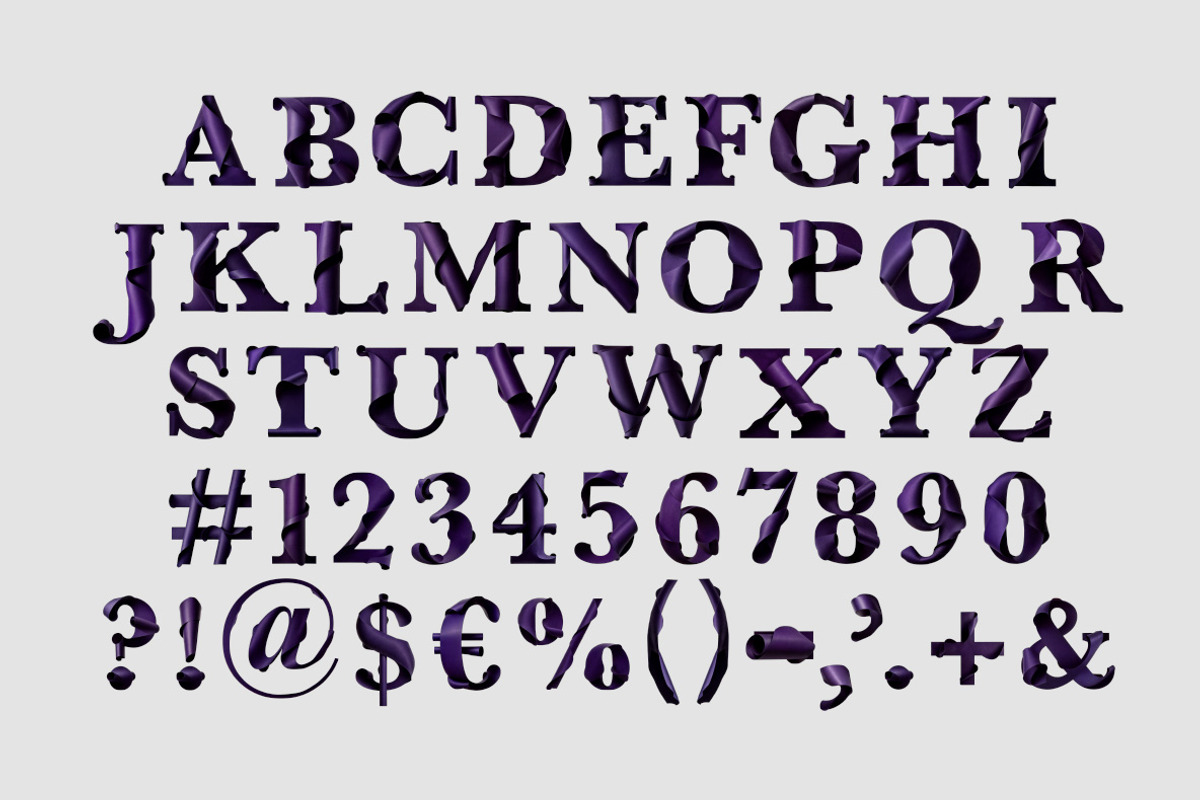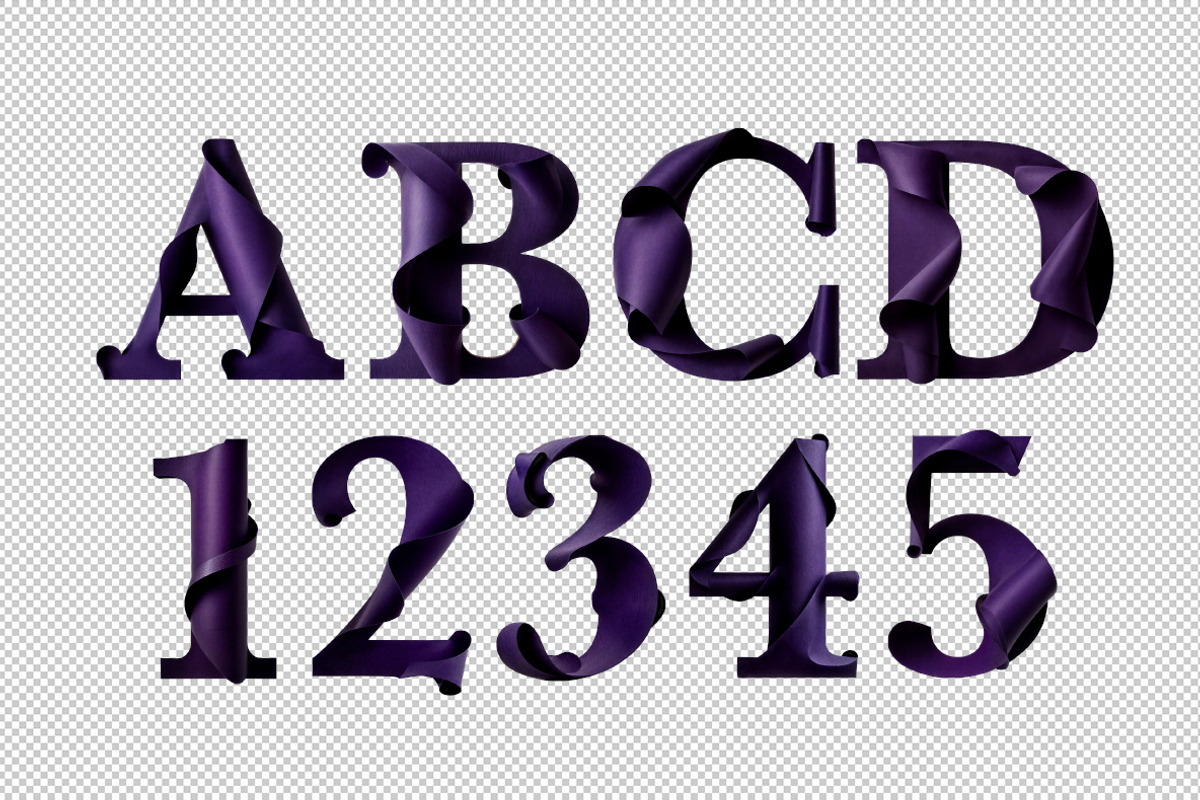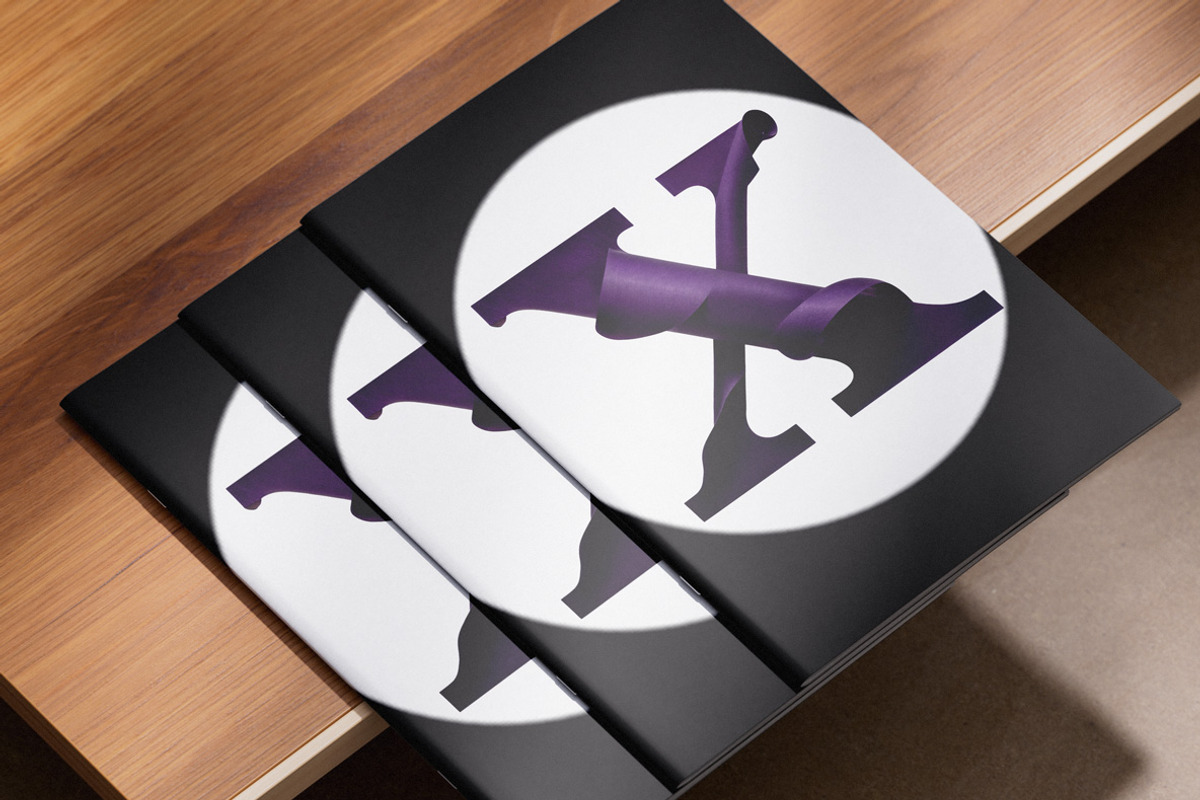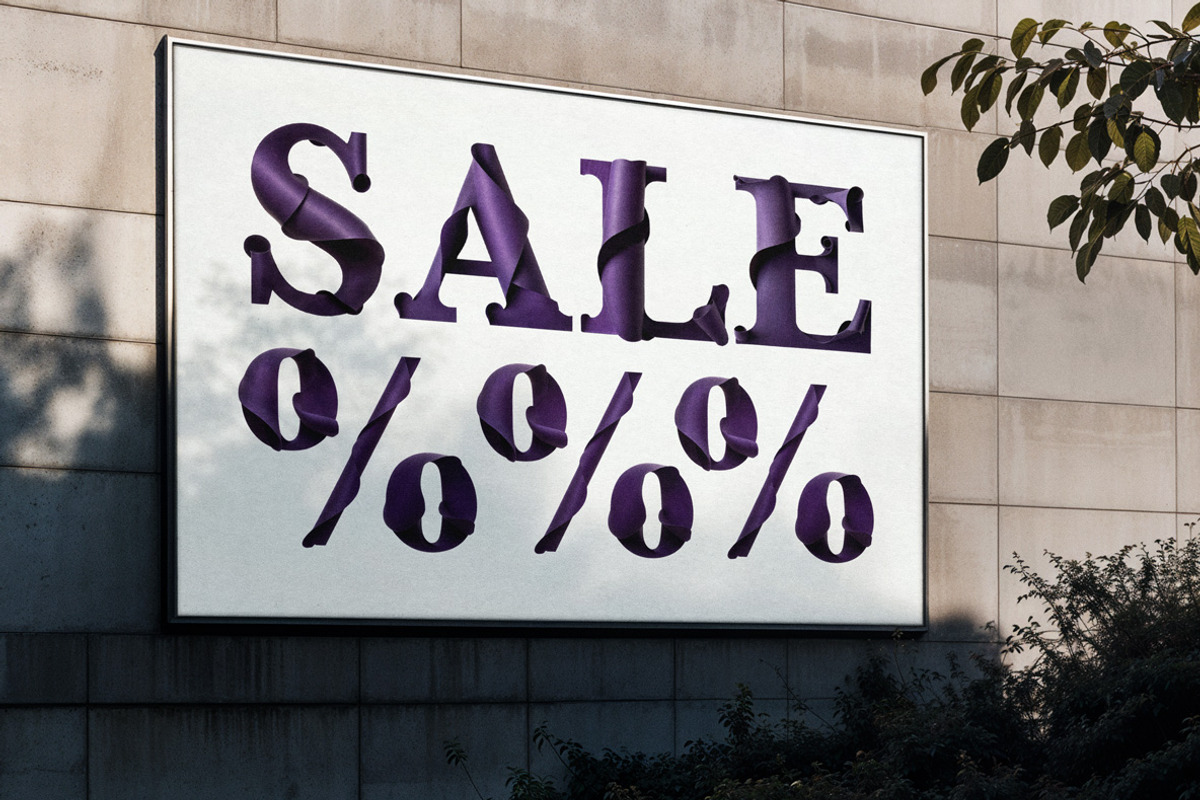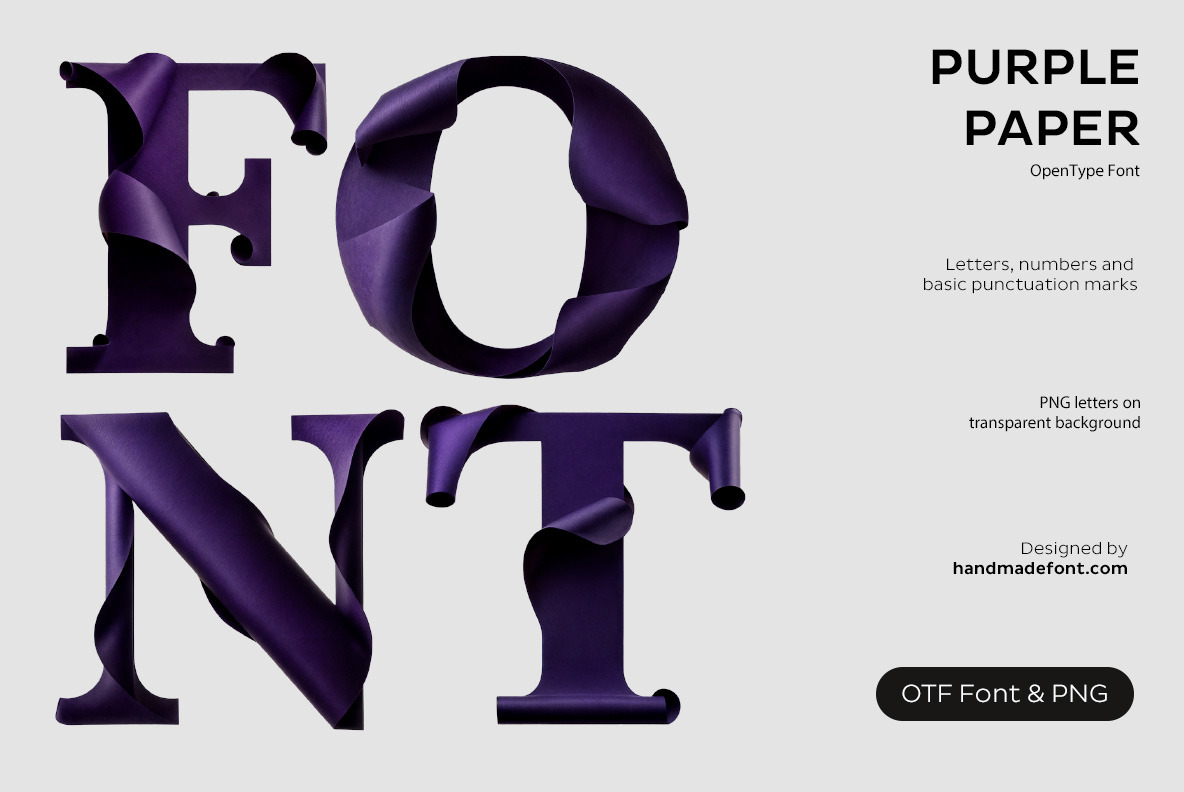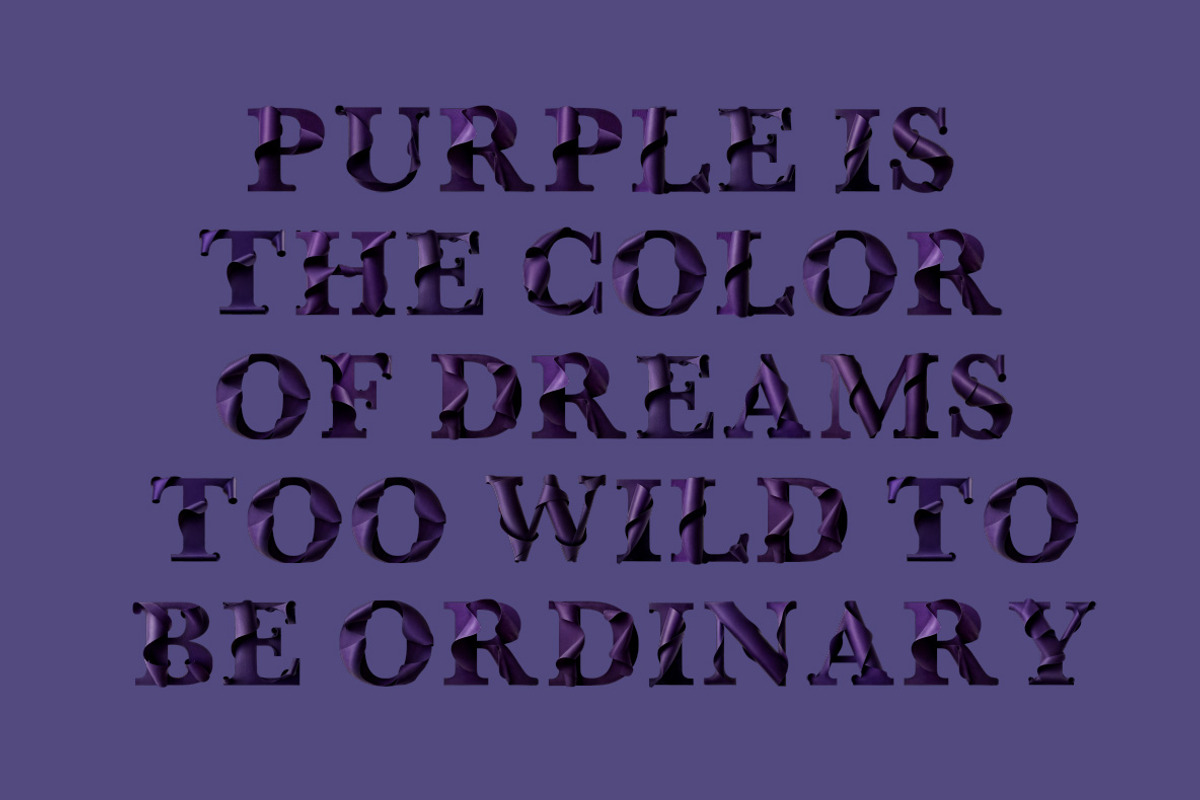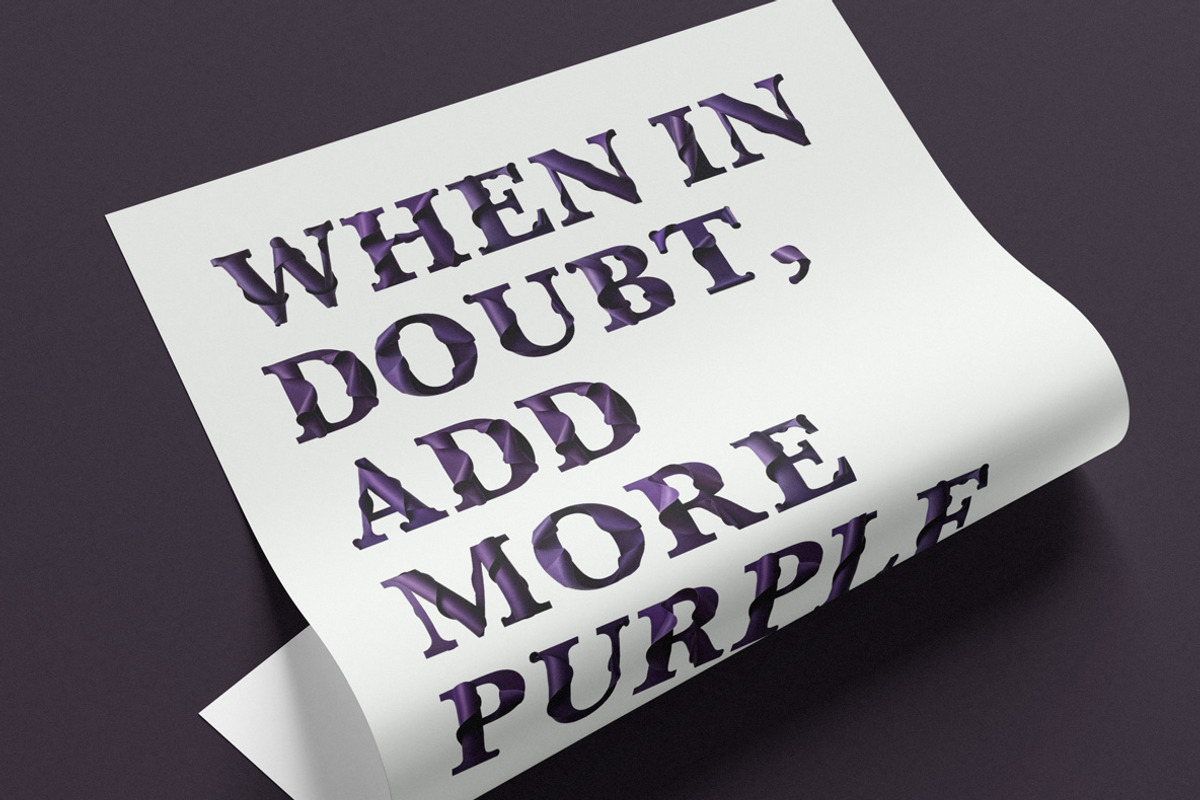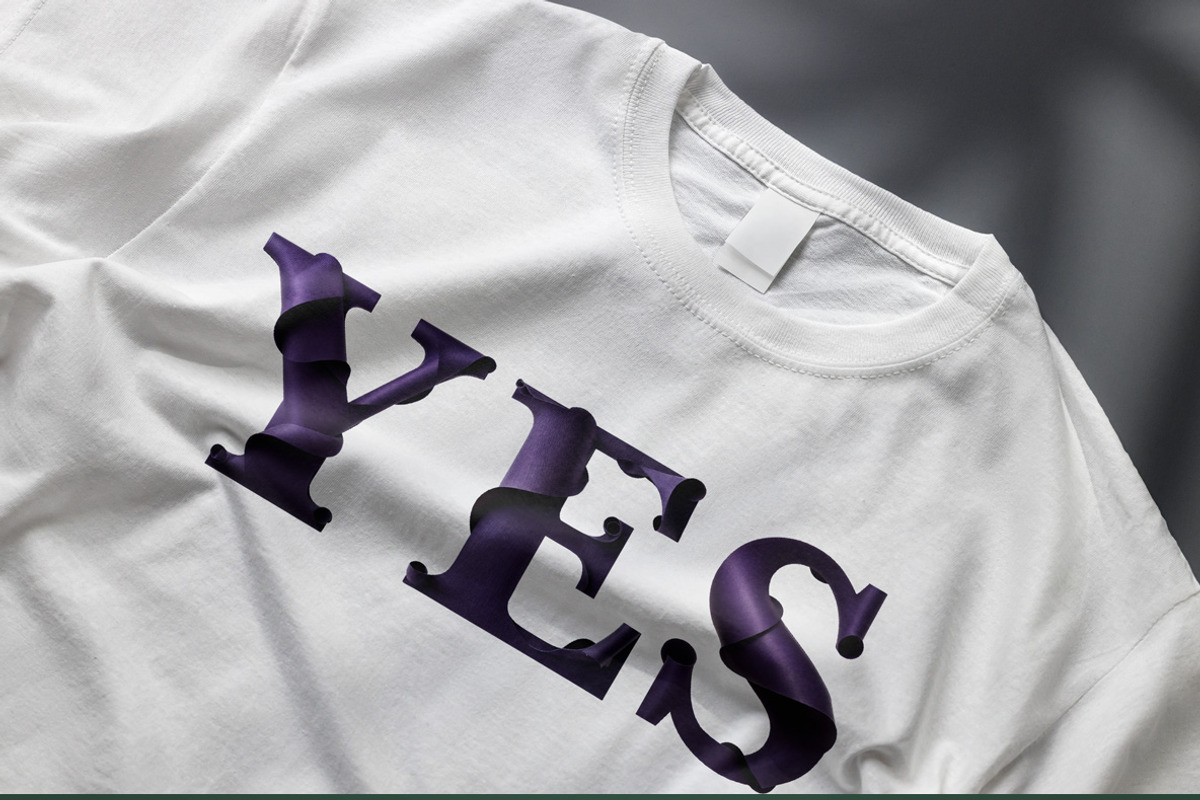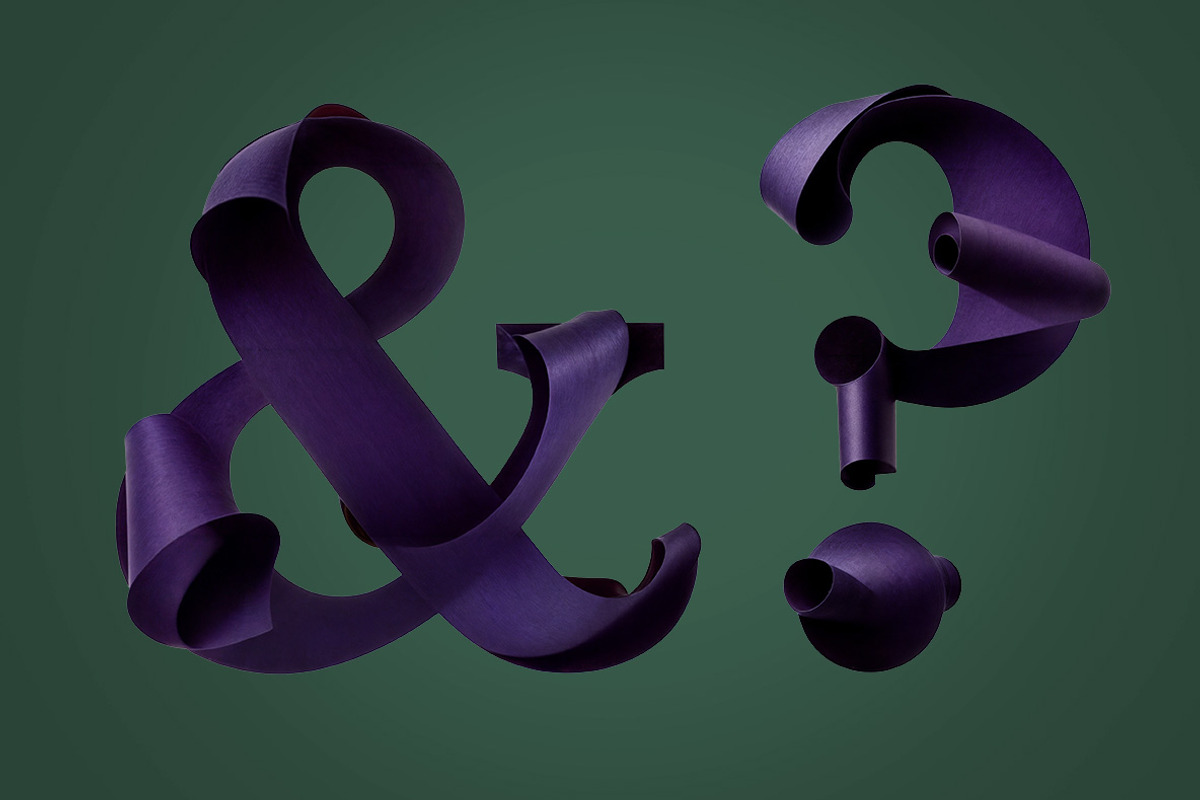
Purple Paper Font
Paper never looked this luxurious! Purple Paper Font is an artistic masterpiece, crafted from deep purple folds that curl and twist like a high-fashion runway show. This isn’t just typography—it’s purple paper lettering with an attitude! With elegant serif-style details and a sophisticated paper-inspired aesthetic, every letter feels like it belongs in a royal proclamation. Whether you're designing for a stylish event or just want to add a touch of refined luxury, this decorative typeface will make your words feel like they were folded by a calligraphy-loving origami master. Go ahead—unwrap the elegance of Purple Paper Typography!
A high definition OpenType Font. Contains uppercase characters, numerals and basic punctuation. (Draw height roughly 800 pixels). All letters and glyphs that comprises this font you can see on the preview.